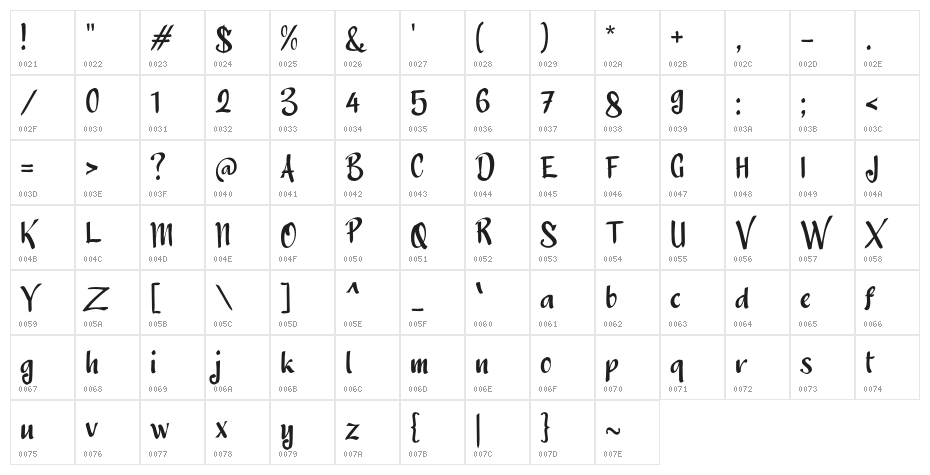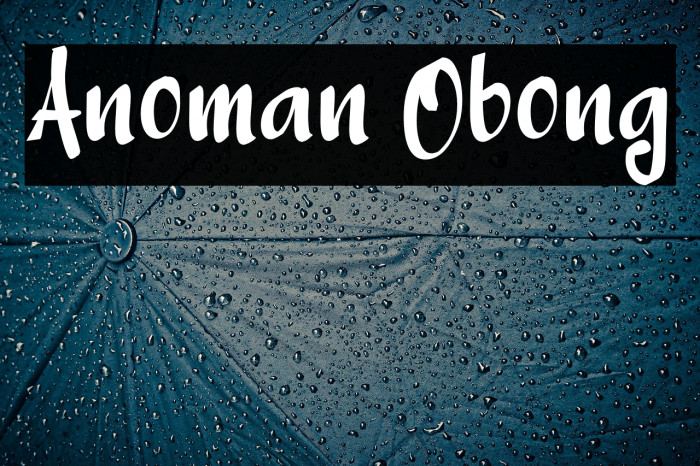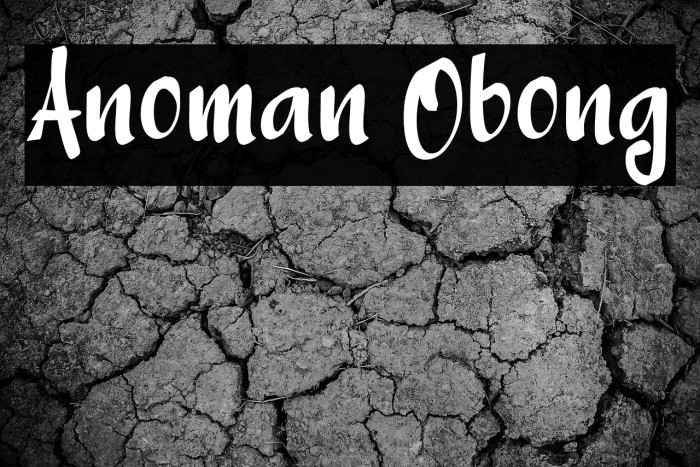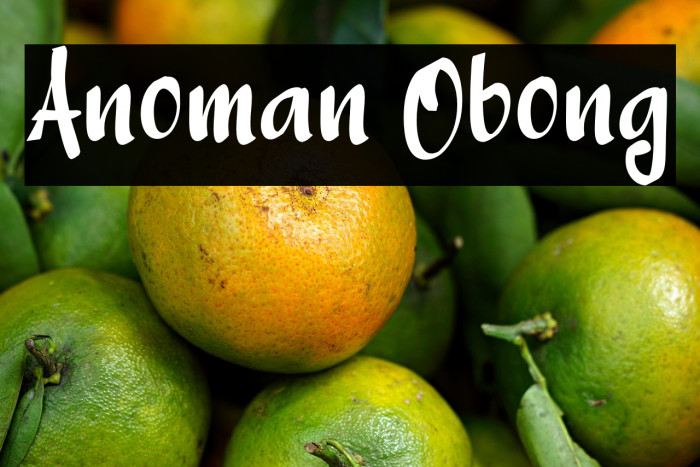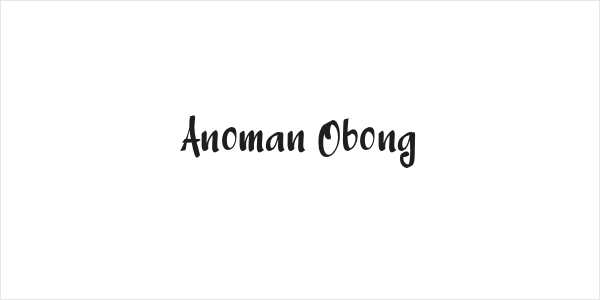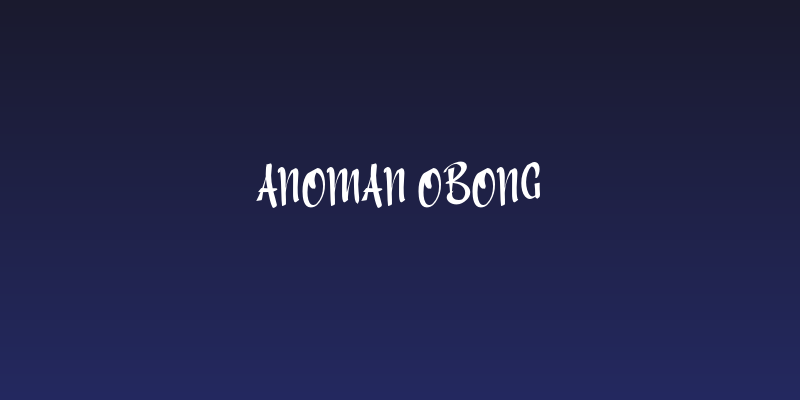
Anoman Obong Font
Anoman Obong Description
This font features a bold and expressive handwritten style, characterized by its fluid and dynamic strokes. The uppercase letters exhibit a playful yet sophisticated flair, with varying stroke widths that add a sense of movement and energy. The lowercase letters maintain this lively aesthetic, offering a harmonious blend of curves and angles. Numbers and special characters are crafted with the same attention to detail, ensuring consistency across all glyphs. This font's unique personality makes it ideal for creative projects that require a touch of elegance and individuality.
| Proposed Projects | Ideal for branding, invitations, posters, and creative design projects that seek a personal touch. |